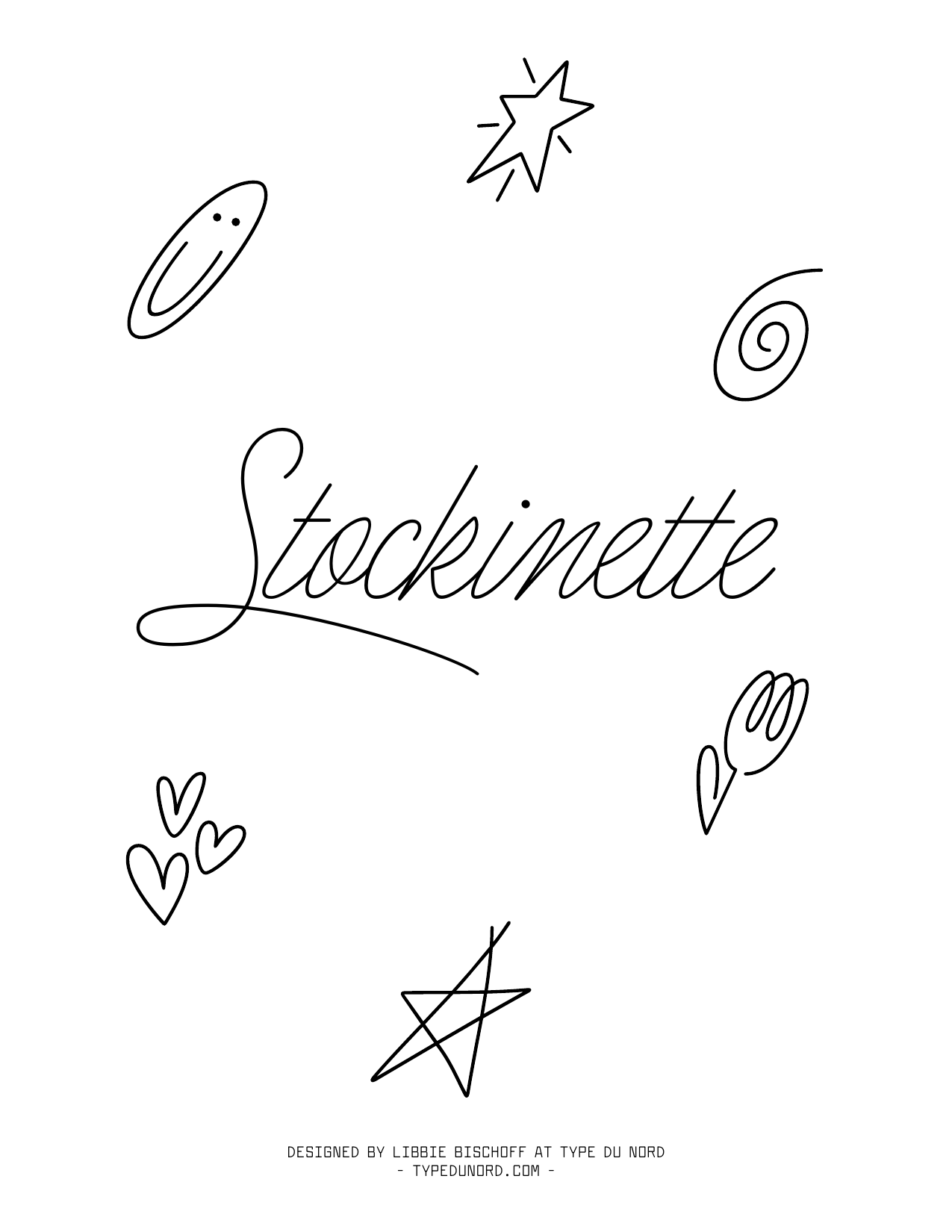
Stockinette
Stockinette is a mid-century script typeface. The original source material was found in a knitting magazine from the 50s! It is meant to imitate handwriting but in a more simplified, typographic style.
Stockinette supports over 200 languages and has lots of extra features like swash caps, dingbats, and doodles!